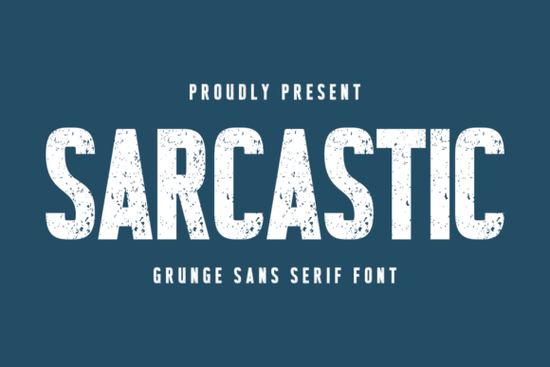
If you're looking for a font that says “I’m joking but maybe not,” the Sarcastic Font fits right in. It’s a bold, grunge-style sans serif with intentional texture and rough edges not broken or glitchy, but deliberately worn, like ink pressed through old screen mesh. That subtle distress gives it presence without shouting, making it ideal for designs where tone matters as much as legibility. Whether you’re layering quotes on a t-shirt mockup or prepping a sublimation file for a ceramic mug, this font carries weight and wit in equal measure.
When does Sarcastic Font work best?
It shines where personality needs to land fast especially in casual, youth-forward, or counter-culture contexts. Think: sticker sheets for teens, Instagram quote graphics with dry humor, or Cricut vinyl decals for coffee mugs that double as conversation starters. Because it’s a sans serif with strong geometric structure underneath the grit, it stays readable even at smaller sizes unlike some overly distressed fonts that blur into noise.
You’ll find it especially useful if you regularly design for print-on-demand platforms. Its high-contrast letterforms hold up well on fabric, ceramic, and matte paper. And since it’s clean enough to pair with minimal layouts (no extra shadows or outlines needed), it saves time in production no need to overcompensate for weak contrast or fuzzy edges.
How does it compare to other bold sans serifs?
Unlike sleek, minimalist options like Simple Aesthetic Font, which leans into calm neutrality, Sarcastic Font embraces imperfection. It’s closer in spirit to Gunken Font both have that grounded, no-frills confidence but Sarcastic adds more tactile texture. If you’ve used Once After Font for elegant contrast in branding, you’ll appreciate how Sarcastic serves the opposite role: grounding a layout with rawness instead of refinement.
For designers who love pairing opposites, try setting a line in Sarcastic next to something airy like Cyprus Sunrise Duo Font. The contrast feels intentional not chaotic because both fonts share solid spacing and clear x-heights, even though their moods couldn’t be further apart.
What file formats and features come with it?
Where do crafters and sellers actually use it?
- T-shirts & hoodies: Paired with a simple outline or left bare works especially well on heather grey or black fabric.
- Mugs & tumblers: Holds up during sublimation transfers without losing edge definition.
- Sticker sheets: Prints crisply on matte vinyl, and the texture reads even at 1.5" height.
- Digital posters & social graphics: Adds visual punch to quote posts without needing filters or overlays.
One small note: because of its texture, avoid using it at very small sizes (under 14pt) in digital UI or app interfaces it’s not built for fine detail. But that’s by design. This isn’t a utility font. It’s a voice.
If you want to see how it looks alongside similar styles, you can preview Sarcastic font directly on Creative Fabrica, or compare it with Gunken font, Once After font, and others in the same family.
Quick checklist before downloading
- ✅ You’re designing for t-shirts, mugs, stickers, or posters not body text or formal documents.
- ✅ Your project benefits from a confident, slightly irreverent tone not polished or corporate.
- ✅ You already have a base layout or color scheme and want a font that anchors the mood not one that requires heavy styling to stand out.
If those match up, Sarcastic Font is ready to go straight into your next project no tweaking, no overthinking. Just open your design app, type something dry, and let the font do the rest.